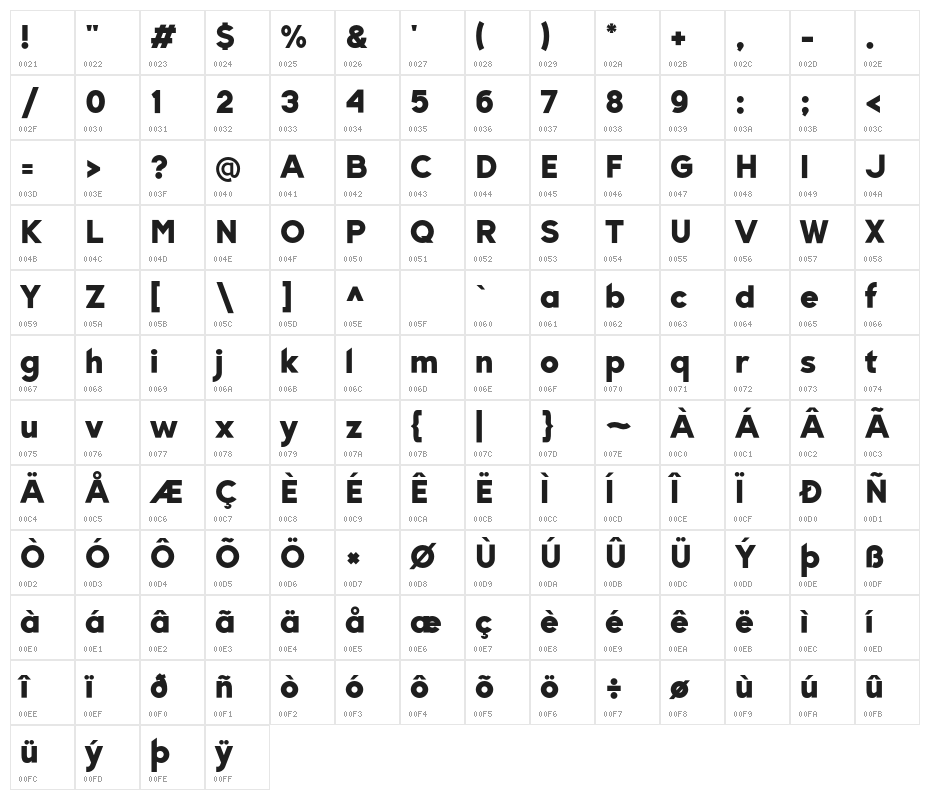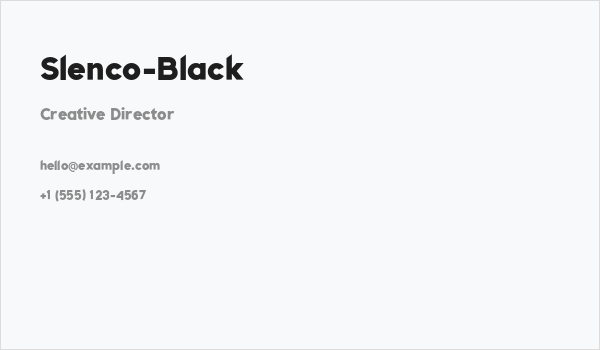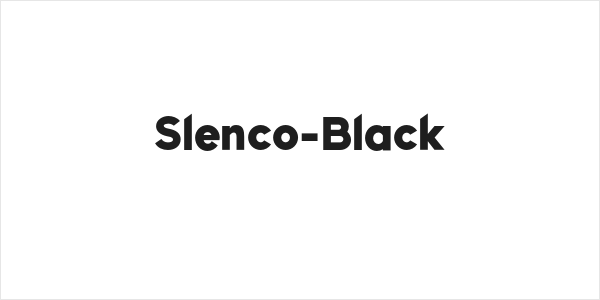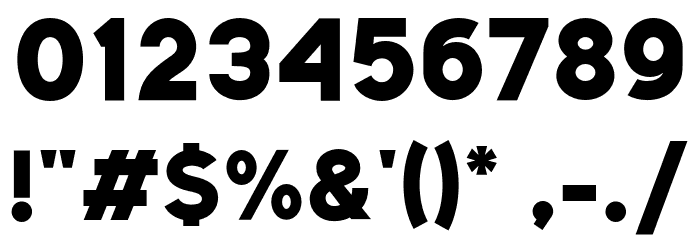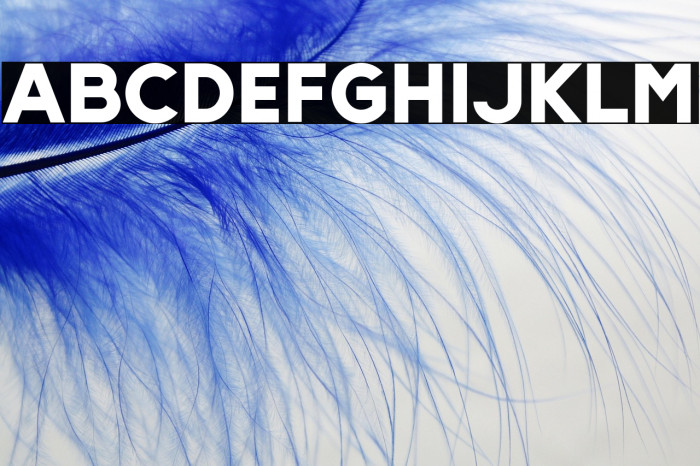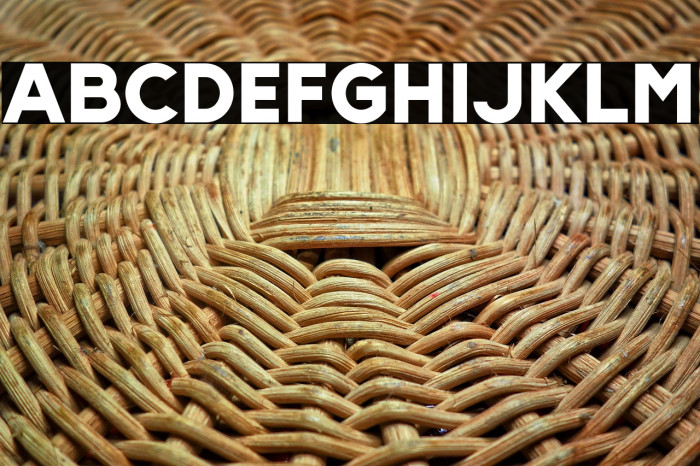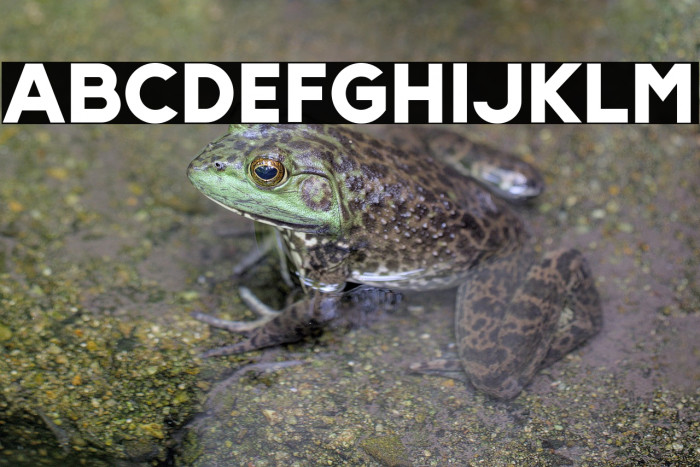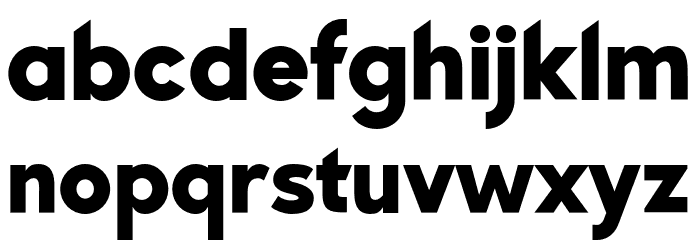
Slenco-Black Font
Slenco-Black Description
This font exhibits a bold and commanding presence with its thick, uniform strokes and clean lines. The characters are well-defined, showcasing a modern sans-serif style that is both versatile and impactful. The uppercase and lowercase letters maintain a consistent weight, contributing to a cohesive and balanced appearance. The numerals are equally bold, ensuring readability and prominence. Special characters are designed with the same attention to detail, making them suitable for various applications. The overall design is straightforward yet powerful, ideal for making a strong visual statement.